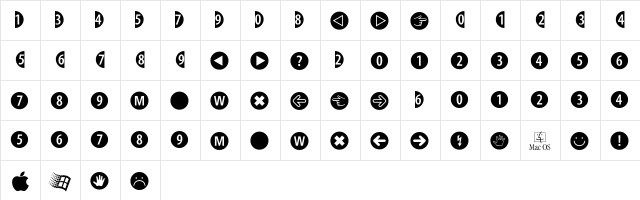
Combnumb 2
Design Context for Combnumb Typeface
Combnumb offers clean, dependable letterforms without strong stylistic allegiance, making it a practical choice for designers who need flexibility.
Pro Tip: Pair Combnumb with a font of contrasting weight or personality to build a more expressive typographic hierarchy.